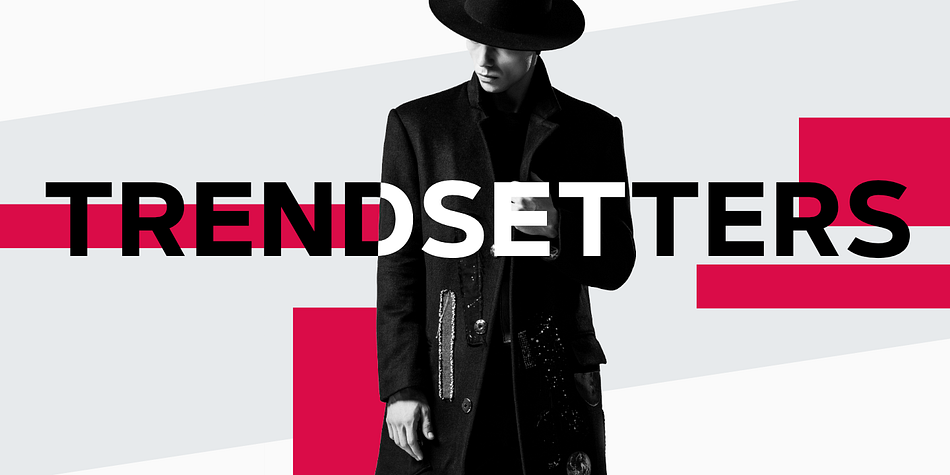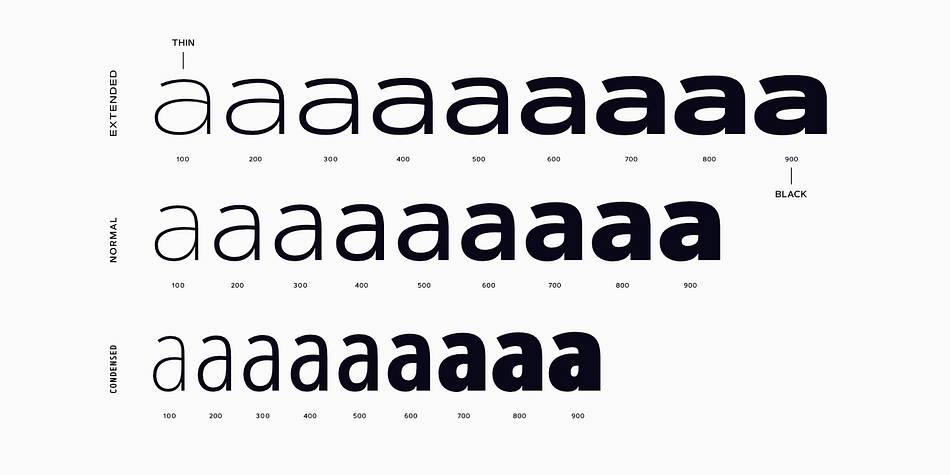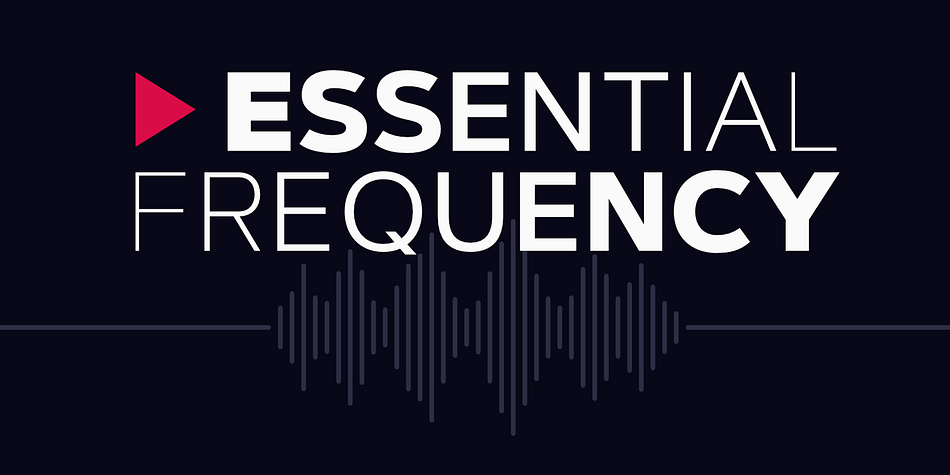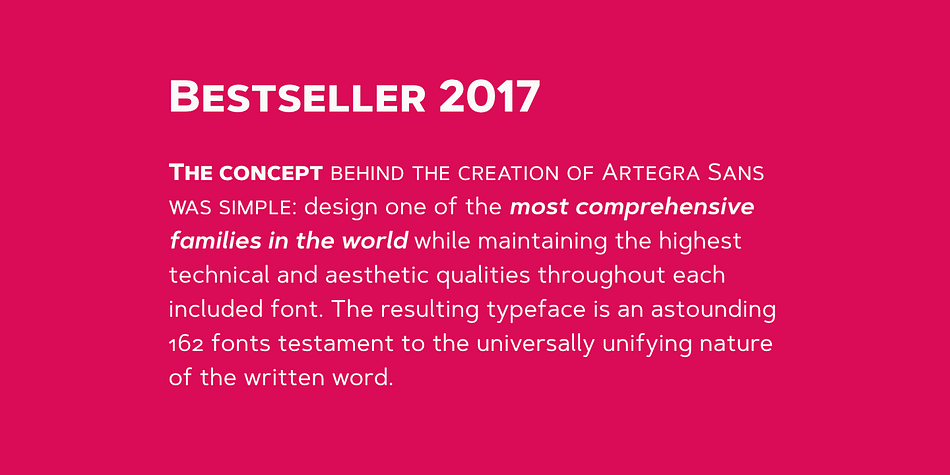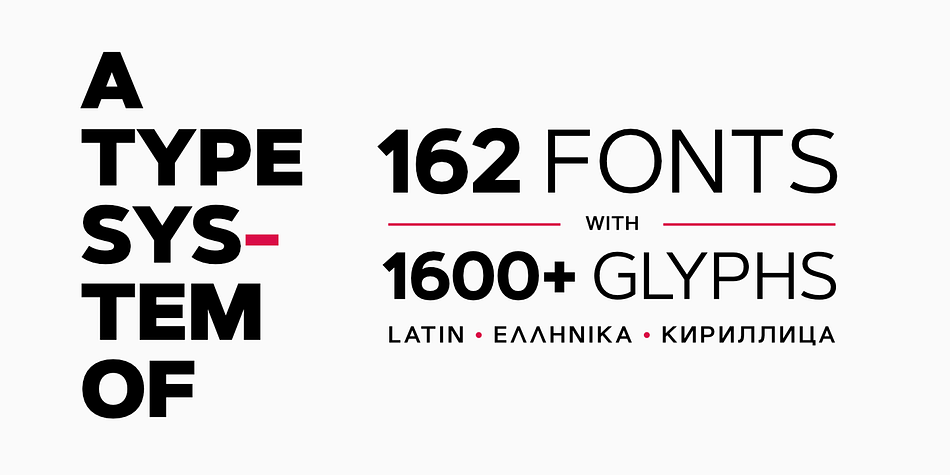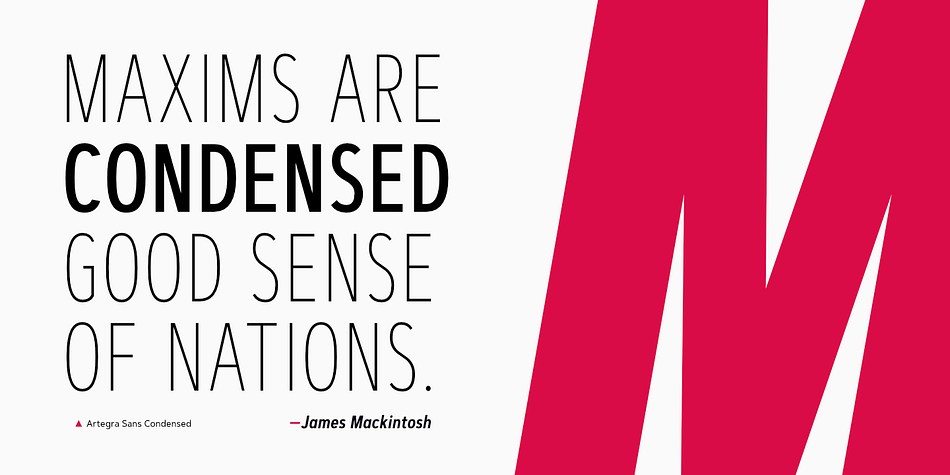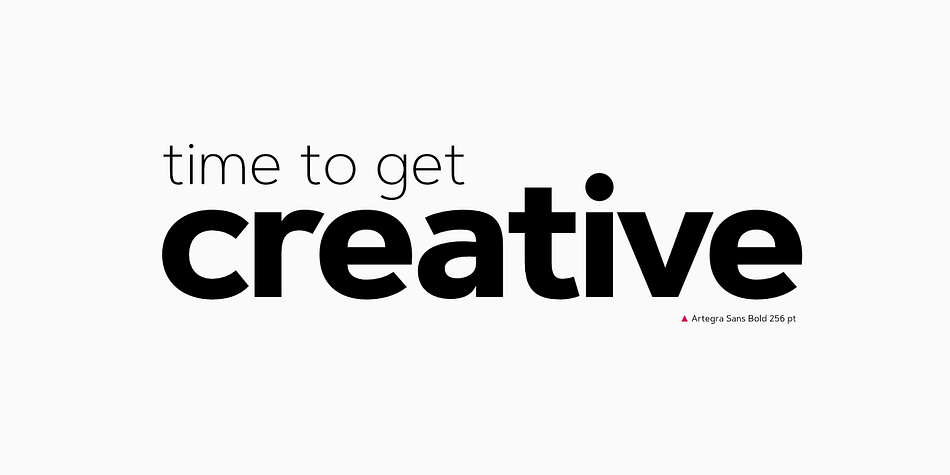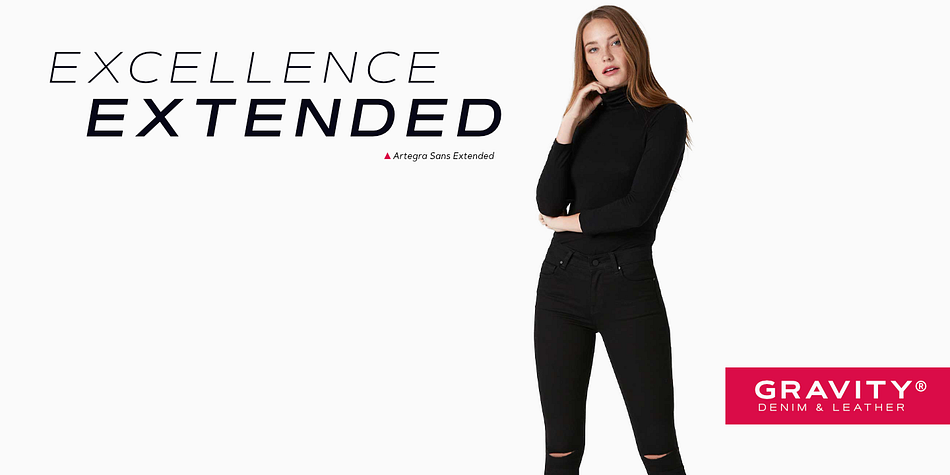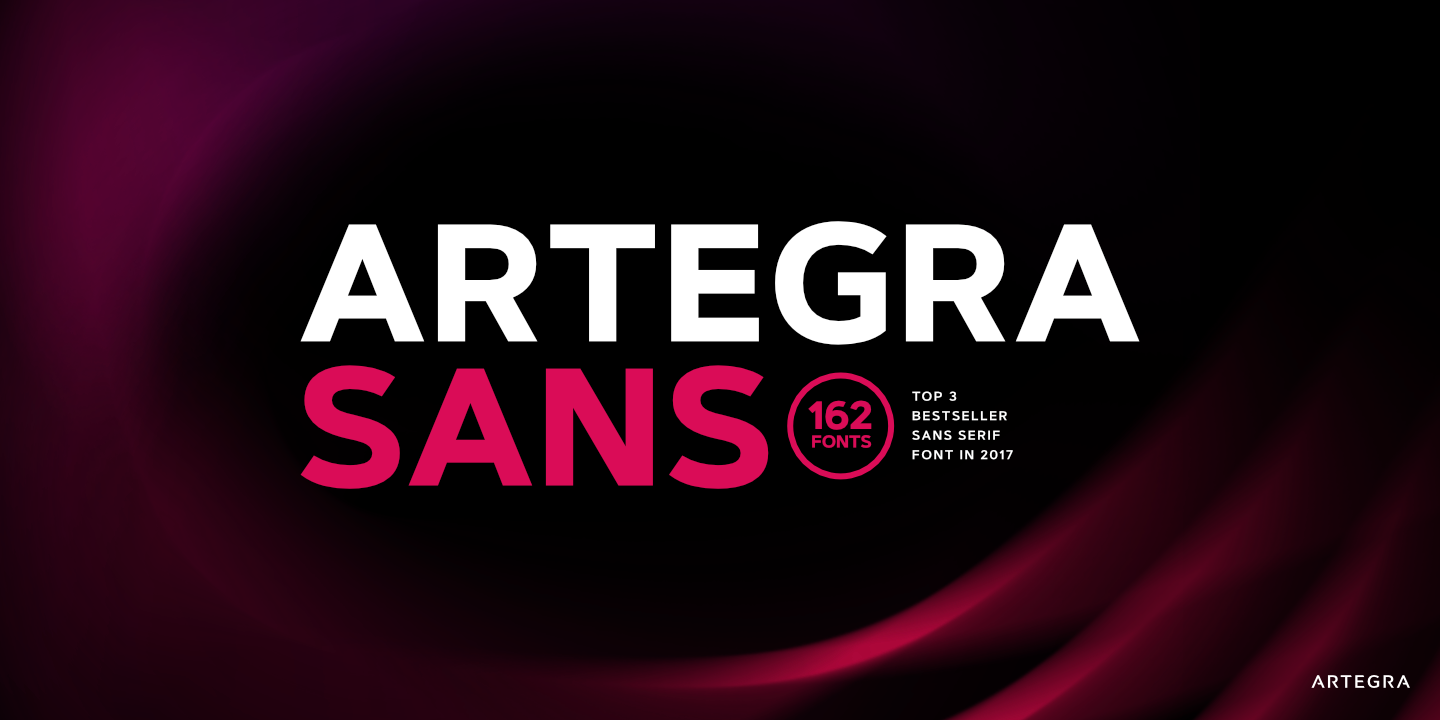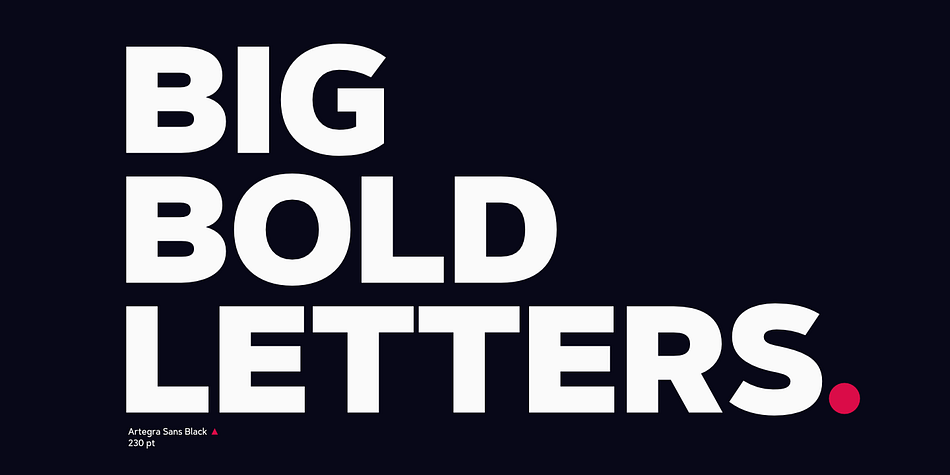
Designed by Ceyhun Birinci, Artegra Sans is a sans serif font family. This typeface has fifty-four styles and was published by Artegra. For separate SC and Alt versions of each font please contact us.
Artegra Sans was designed between 2014 - 2017 by the Turkish type designer Ceyhun Birinci. All started with the idea of making one of the most comprehensive typeface families in the world, while maintaining top quality in design. Artegra Sans does exactly that, offering quality in quantity in a total of 54 weights.